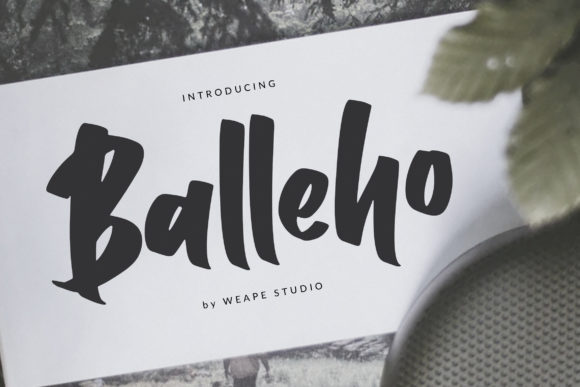
Immerse yourself in the world of Balleho Font, where creativity flourishes and individuality shines. This extraordinary script font, crafted by the visionary minds at Weape Design, is a masterpiece that will transform your design projects into breathtaking works of art.
Balleho Font captivates with its bold and unique brush strokes, paying homage to the beauty of handwritten lettering. Each character dances across the page with an unmatched grace, adding a personal touch to your designs that will leave a lasting impression.
With Balleho Font as your creative companion, you'll embark on a journey of boundless possibilities. This versatile font family seamlessly adapts to a multitude of projects, from elegant invitations and captivating social media posts to stunning logos and eye-catching website designs. Its versatility knows no bounds.
Balleho Font is a font that speaks to the heart, evoking emotions and capturing attention with its distinct personality. It's the perfect choice for those seeking to make a statement, to leave a mark that resonates with their audience. Its bold strokes are like a confident declaration, making your words come alive with an undeniable impact.
Embrace the allure of Balleho Font and unlock a world of creative possibilities. Let your imagination soar as you craft designs that captivate and inspire, leaving a lasting imprint on the hearts and minds of those who encounter your work. Balleho Font is more than just a font; it's an expression of your authentic self, a storyteller that brings your vision to life.
With its bold brush strokes and captivating personality, Balleho Font is the key to unlocking a world of creative possibilities. Unleash your imagination and embark on a journey of boundless creativity, crafting designs that leave a lasting impression. The time is now to embrace the beauty of Balleho Font and elevate your projects to new heights of excellence.